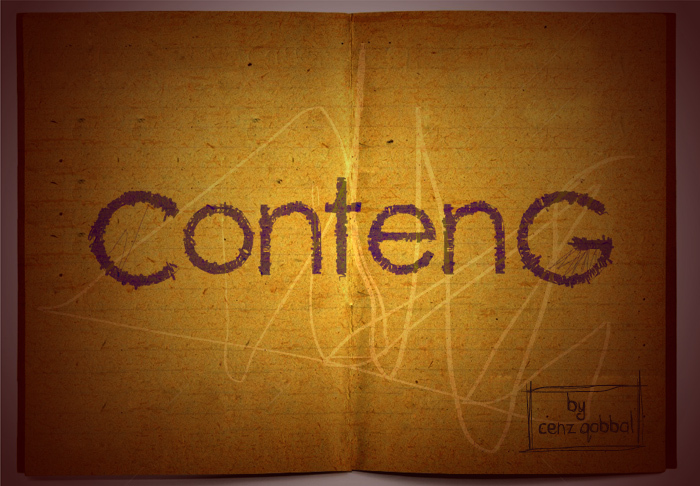
ContenG by cenz qobbal is a free distorted display font with a frantic, hand-scratched finish. Letters shift between thin outlines, dark wedges, and roughly shaded strokes. Their uneven proportions make the whole design feel deliberately unsettled.
A concert poster is its clearest setting, especially for noisy punk or experimental acts. The same broken, improvised texture suits album covers, underground event flyers, and rebellious clothing graphics. It is aimed squarely at designers working with raw music and street-culture themes.